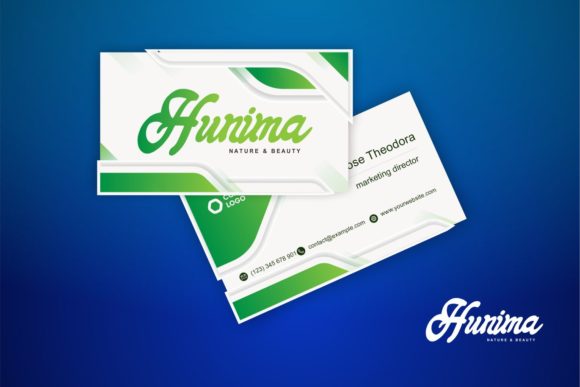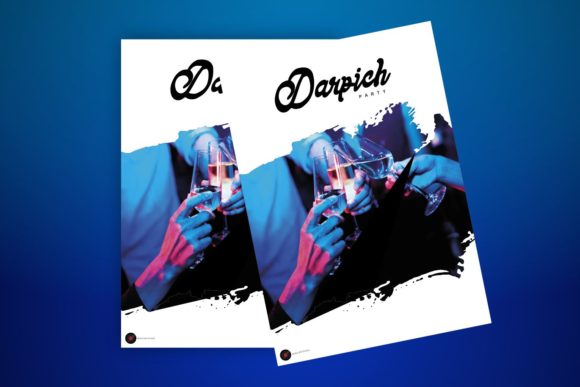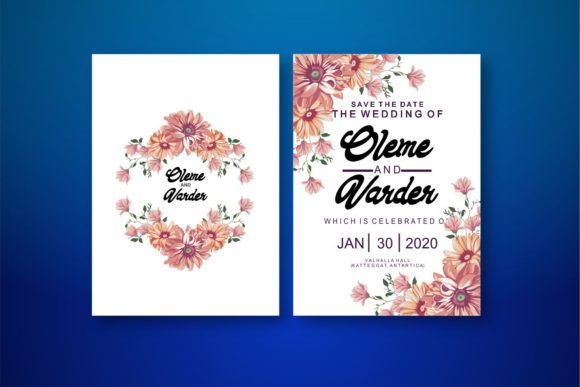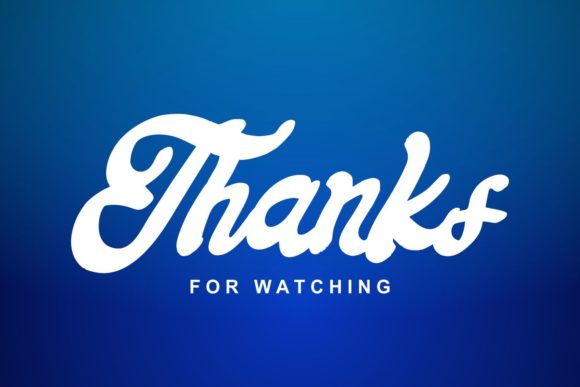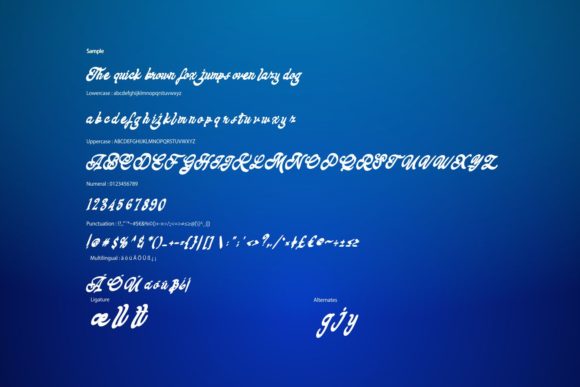
HomeScript FontsKeyrey Font Script Fonts Keyrey Font FacebookXPinterestWhatsApp Keyrey Font Poster 2 Keyrey Font Poster 3 Keyrey Font Poster 4 Keyrey Font Poster 5 Keyrey Font Poster 6 About Keyrey Font Keyrey is a funky and cool script with a bold feel. Get groovy with this extraordinary font. DOWNLOAD ON CREATIVE FABRICAThis font is sold and delivered by Creative Fabrica. Font Canyon may earn a commission if you buy through this link. People also explored Peaches Berries Font Fellowmen Font Blank Face Doodle Font Play Mask Font Sinestra Signature Font Githa Lovely Font Blindlight Font Kungfu Fighter Font Soul King Font 287 0 TagsKeyrey Font Previous articleBedmifo FontNext articleGabrialle Font LEAVE A REPLY Cancel reply Comment: Please enter your comment! Name:* Please enter your name here Email:* You have entered an incorrect email address! Please enter your email address here Website: Save my name, email, and website in this browser for the next time I comment. Personal Use Free Fontmageddon Personal Use Free Read more about this font Triangular Curves Personal Use Free Read more about this font Mellgatha Personal Use Free Read more about this font Lost Treasure Personal Use Free Read more about this font BLOG The 10 Best Handwriting Fonts to Add Personality to Your Designs 10 of the Best Handwriting Fonts for Adding Personality to Your Designs There will undoubtedly be no other better choice than handwriting fonts to give... Modern Sans-Serif Fonts That Brands Love in 2025 Transform Your Website: Elevate Your Typography with 7 Best Web Font Generators Elegant Wedding Invitation Fonts – Handwritten & Script Fonts